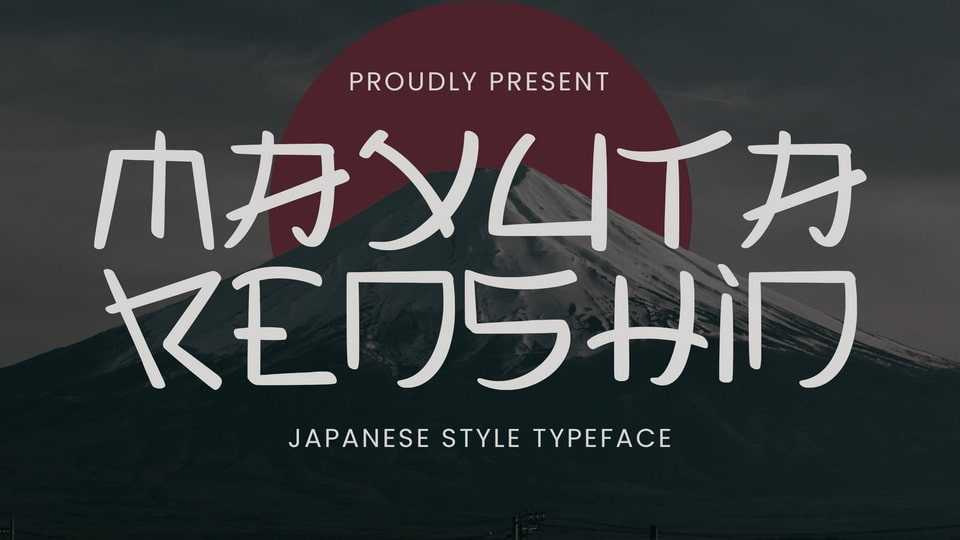
Download Mayuta Renshin font, a Japanese-style typography specially crafted to produce exquisite and captivating strokes of the font. Mayuta Renshin is perfect for branding projects, logos, social media posts, advertisements and so on.